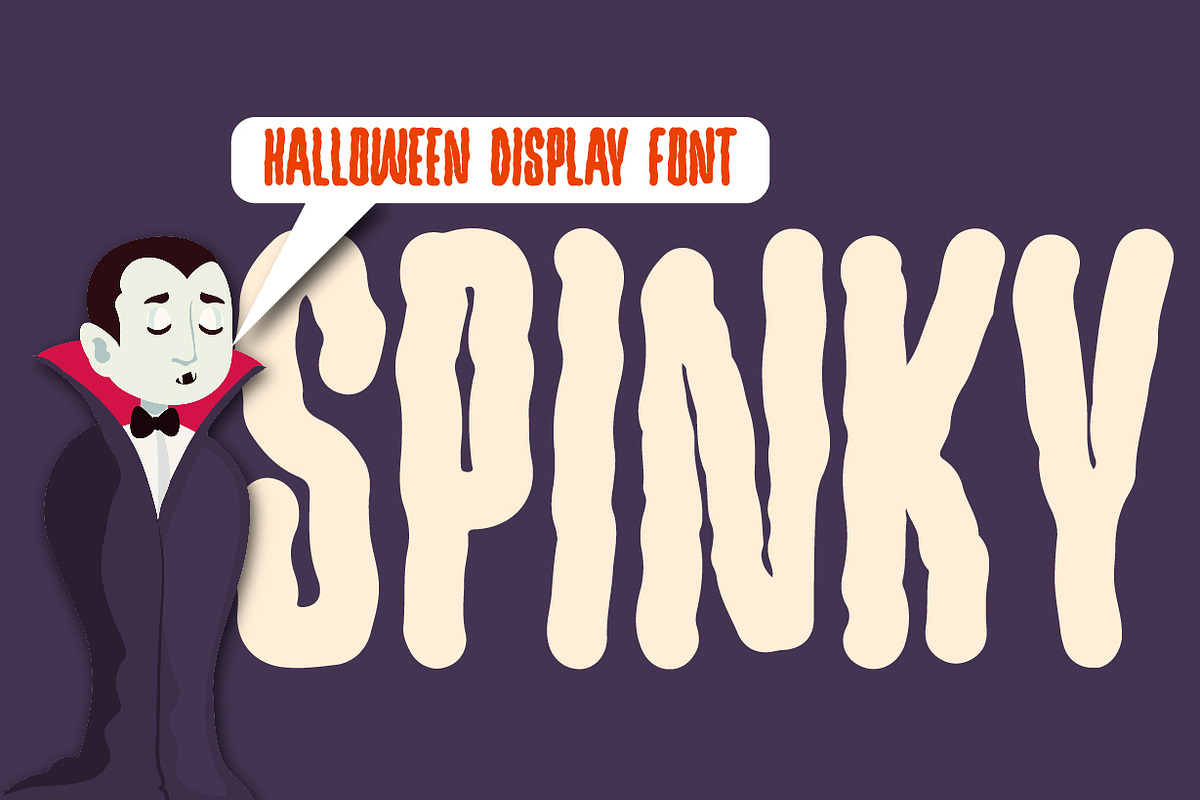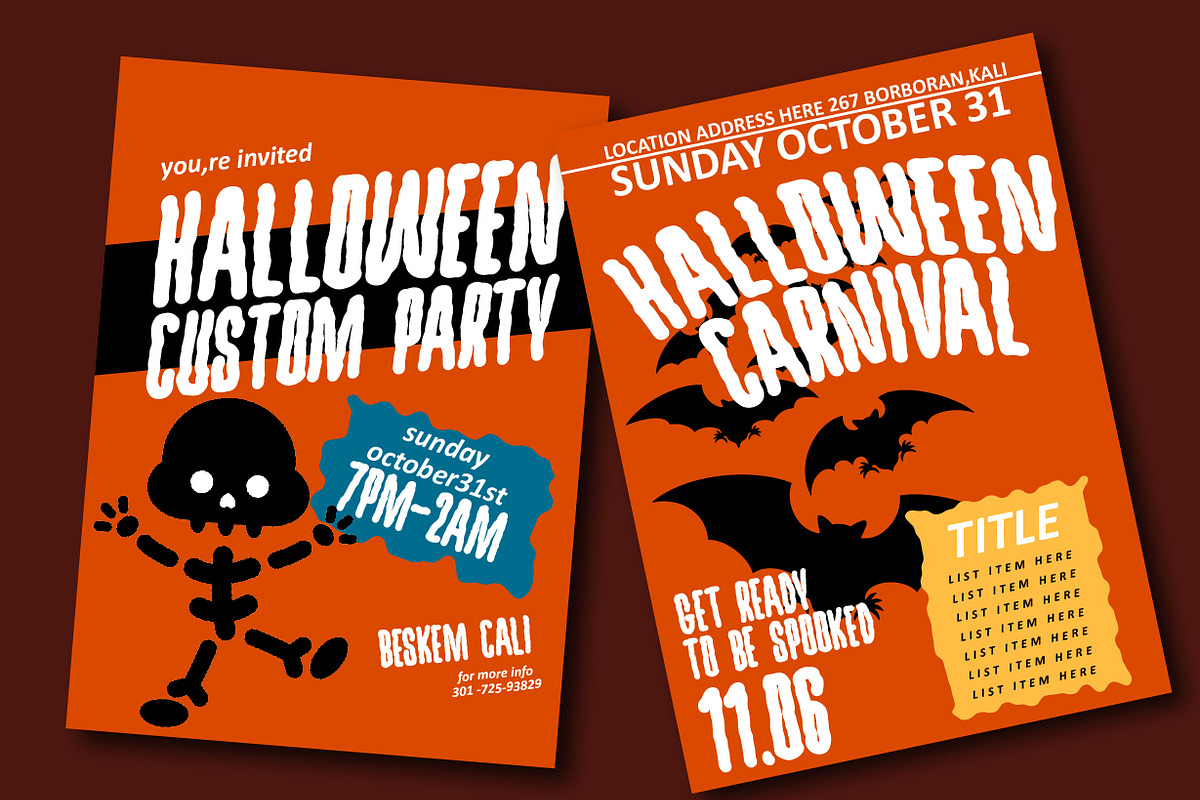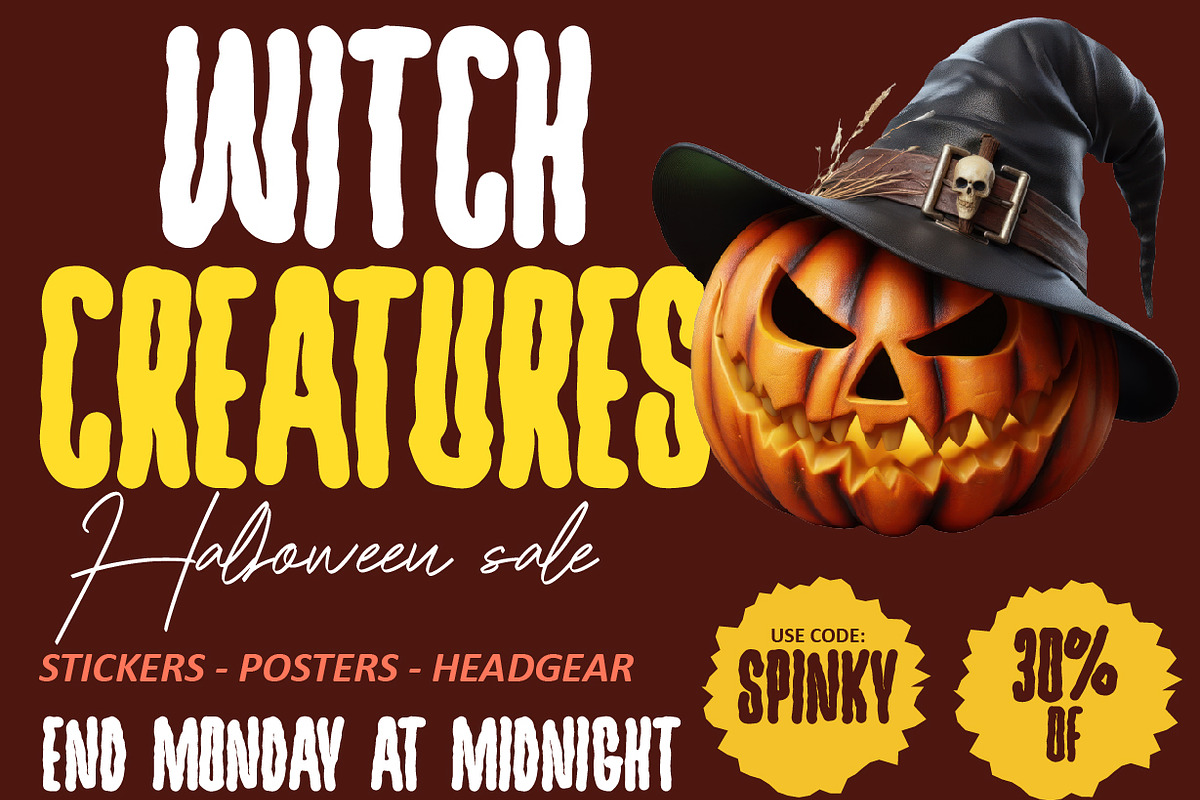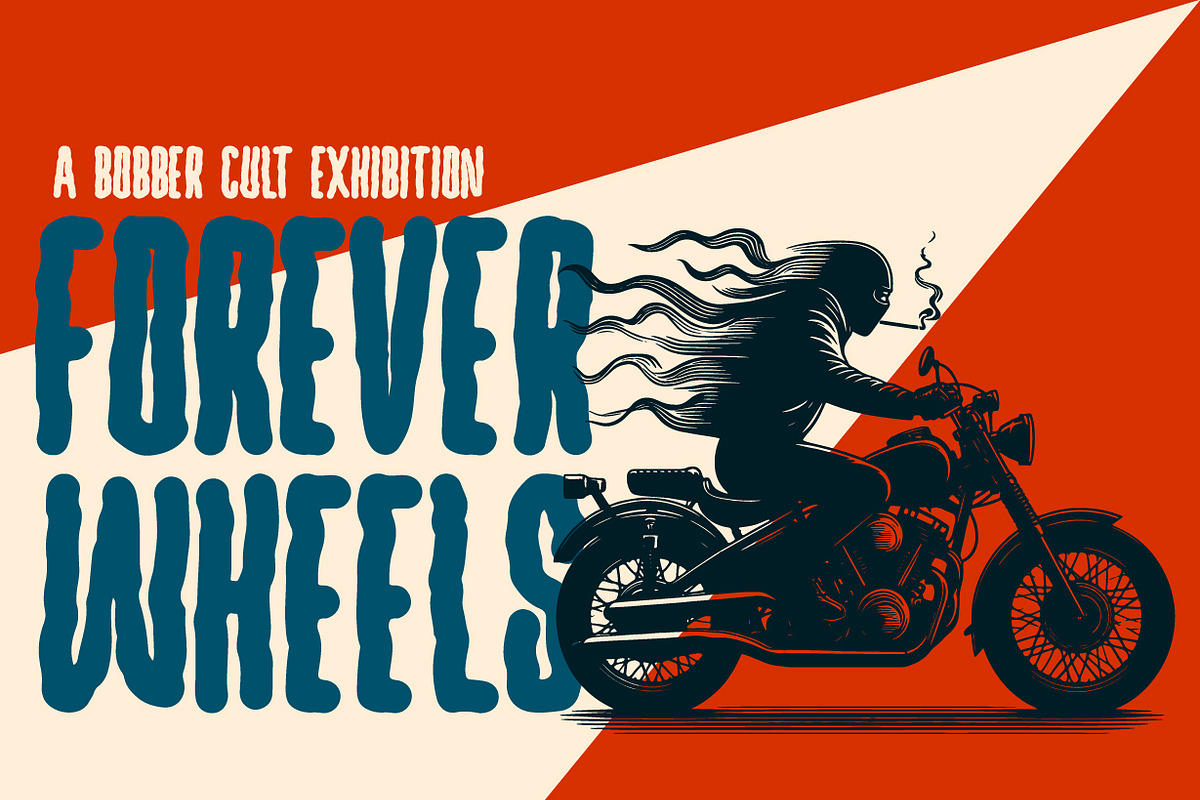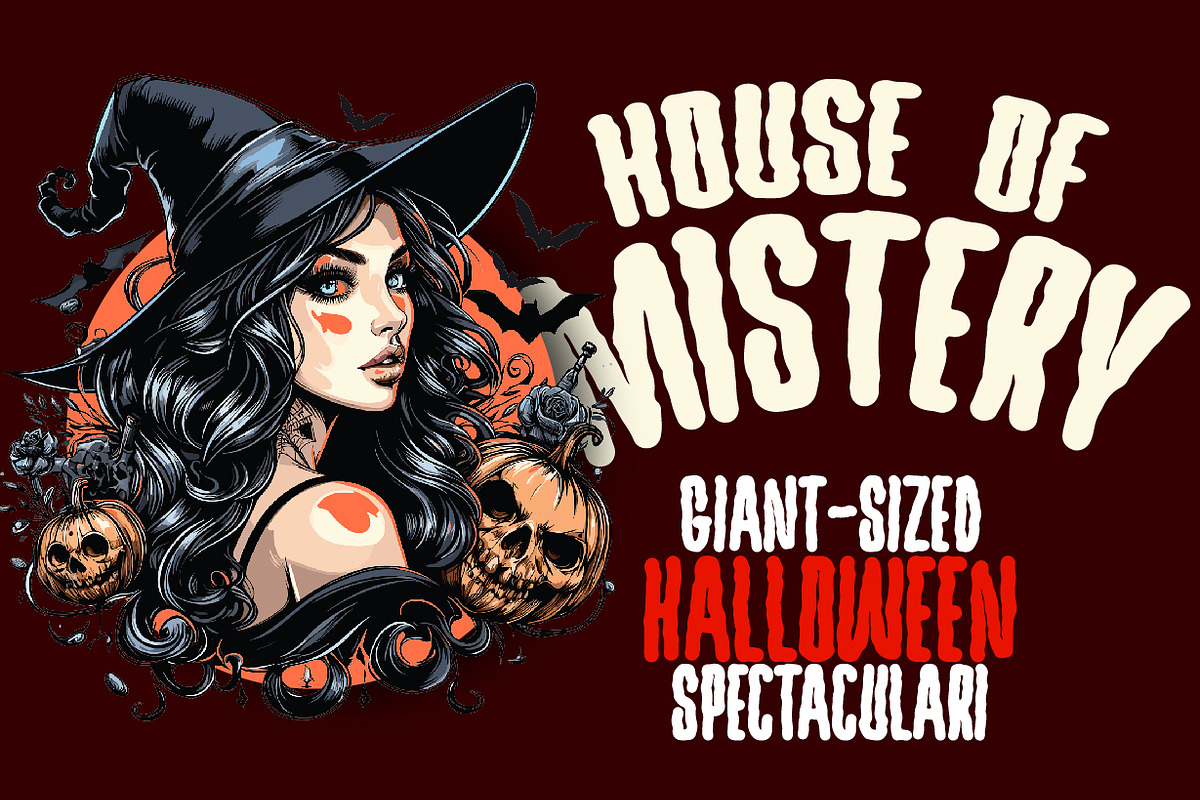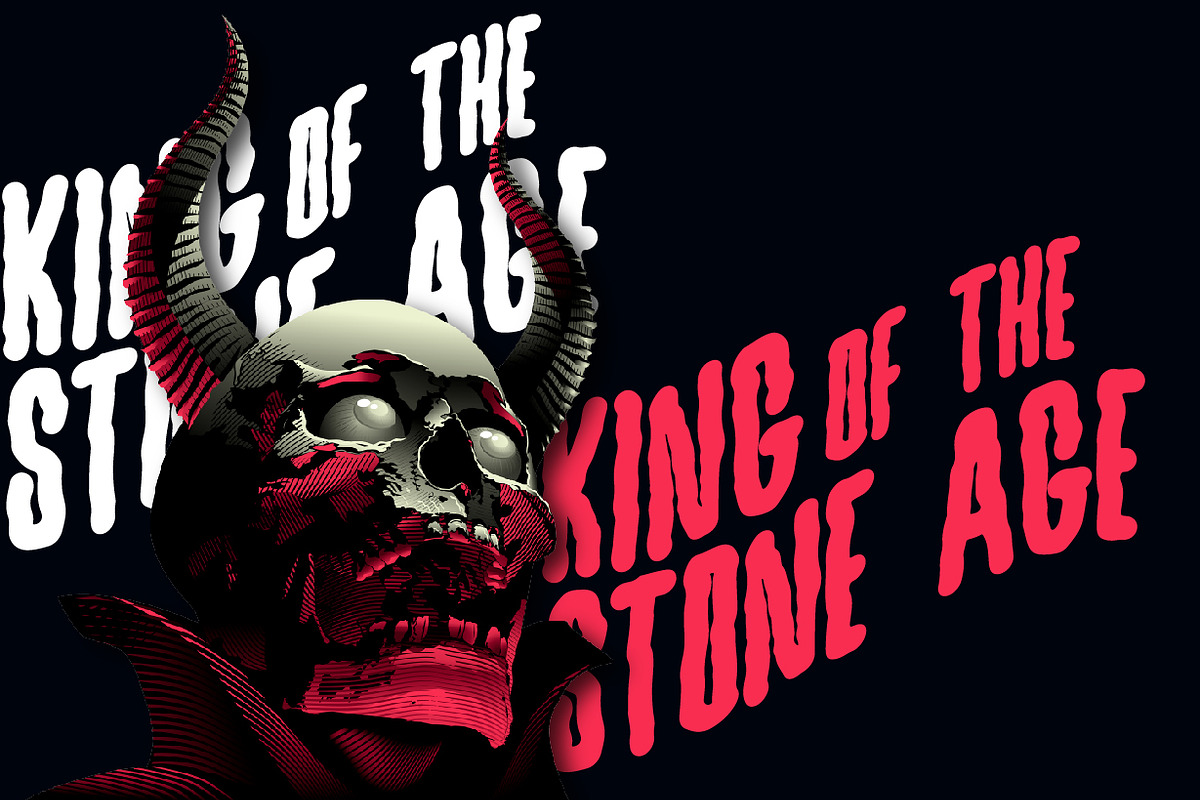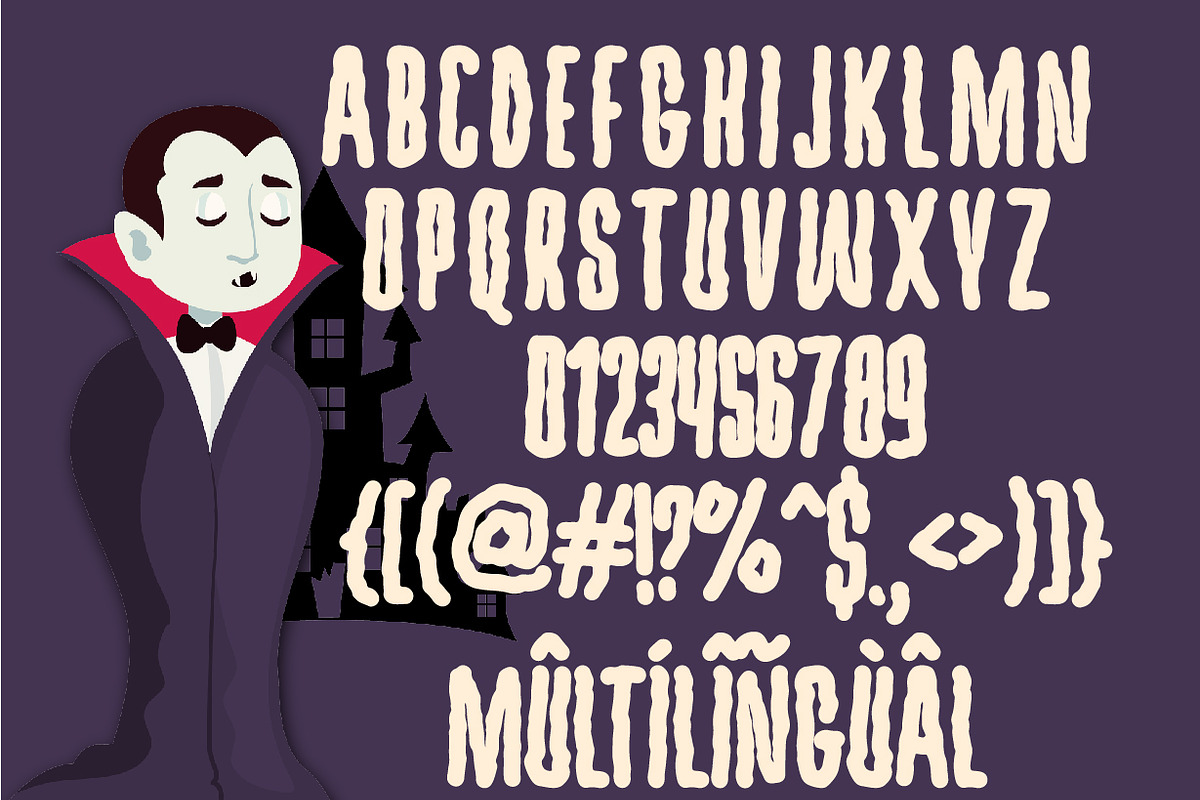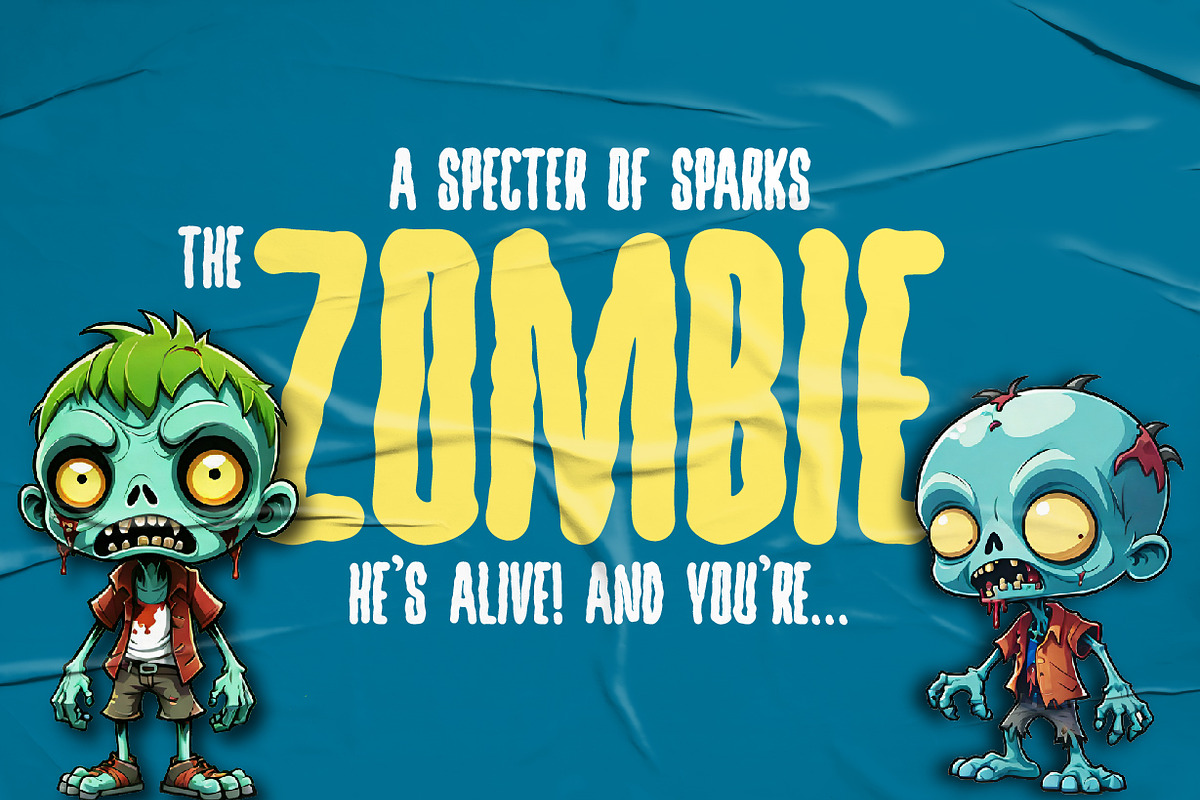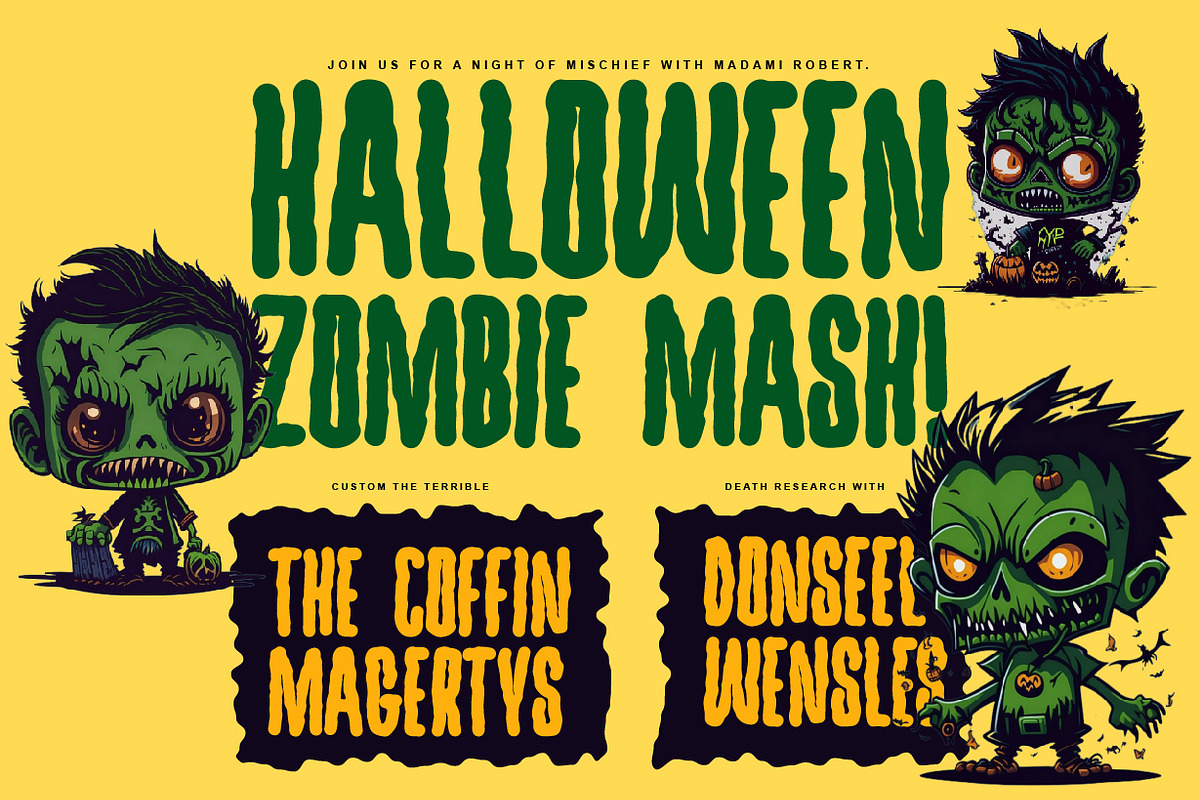
Spinky - Hallowen Display Font
Spinky has a strong, inspired by the Halloween event with condensed type and curves that look like horror. Can be applied such film poster designs, book covers, quotes etc.
Support Foreign, Numbers and Punctuation.